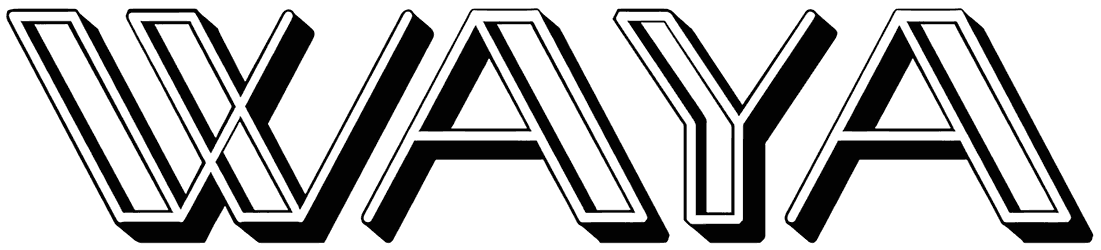
Waya Font
Waya is an all-caps retro font that comes with uniformly straight and chunky characters, thus carrying a feeling of eerie, vintage, drama, or professionalism. This 3D font is able to boost the visibility of your artwork…
Waya is an all-caps retro font that comes with uniformly straight and chunky characters, thus carrying a feeling of eerie, vintage, drama, or professionalism. This 3D font is able to boost the visibility of your artwork and make it stand out alongside dozens of high-end posters, logos, billboards, or social media posts.